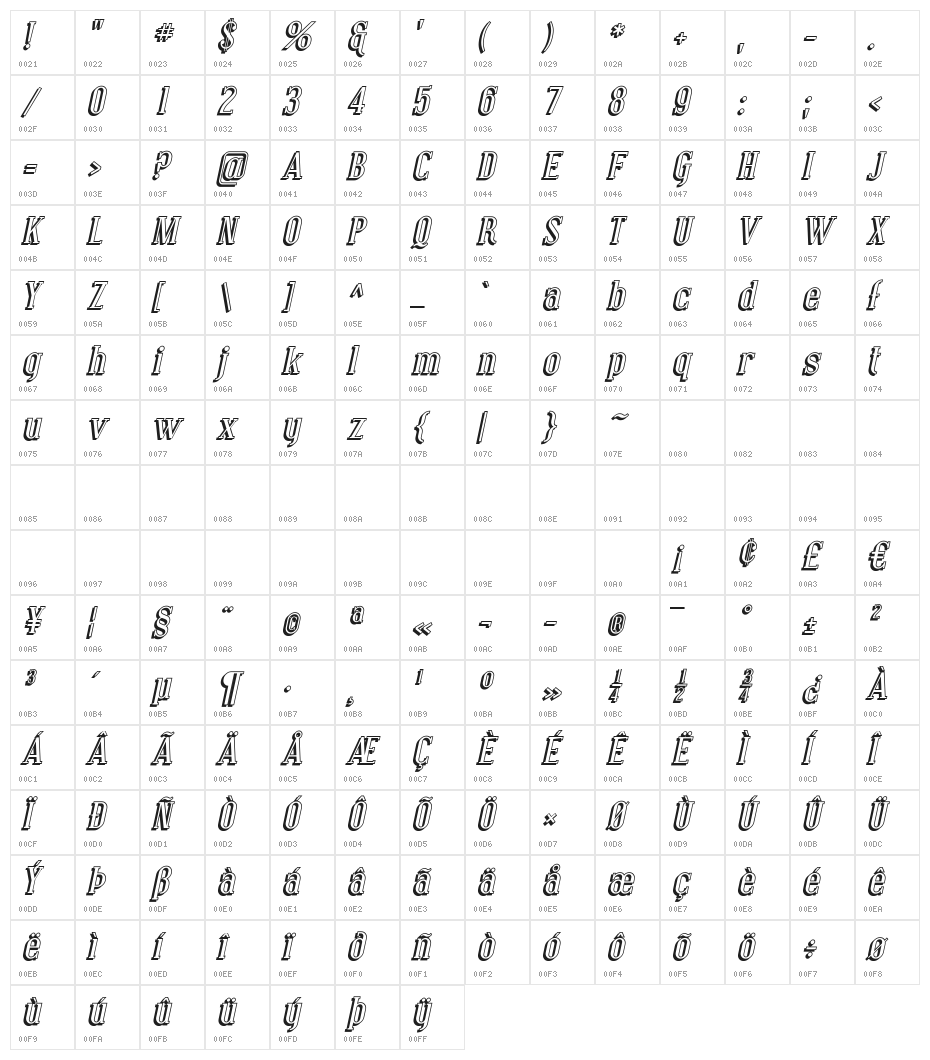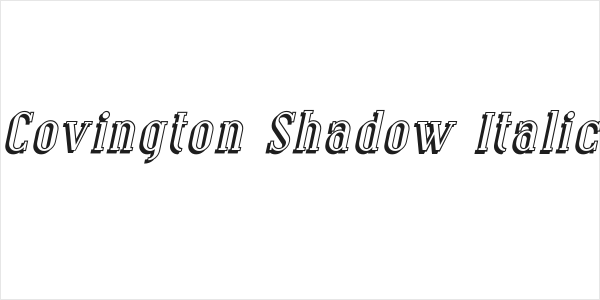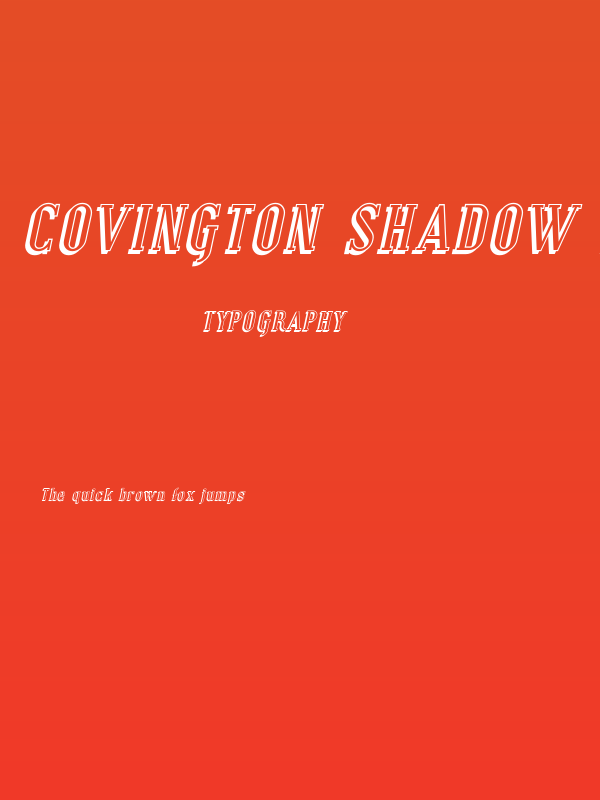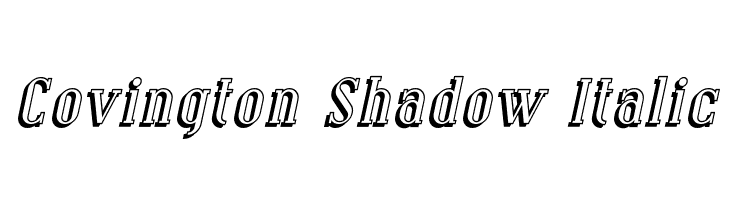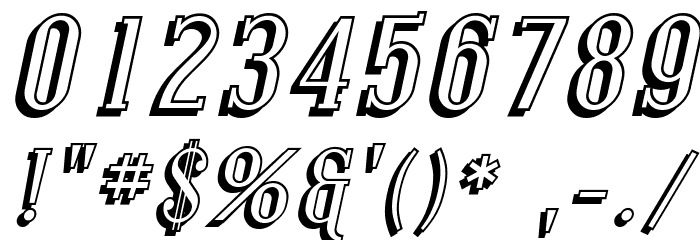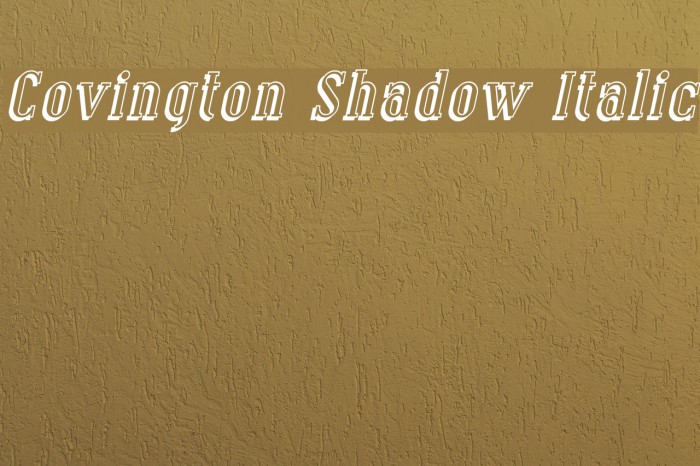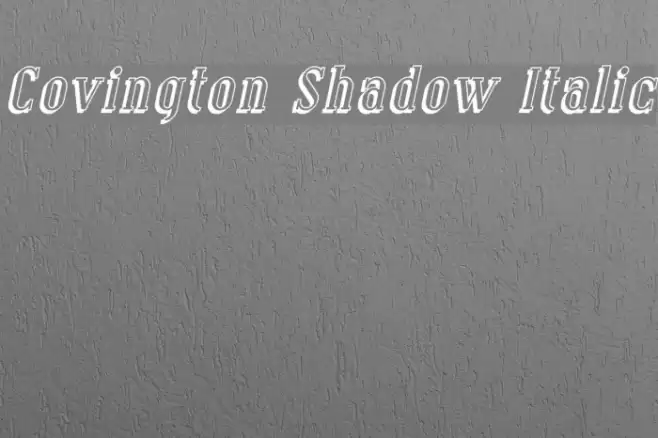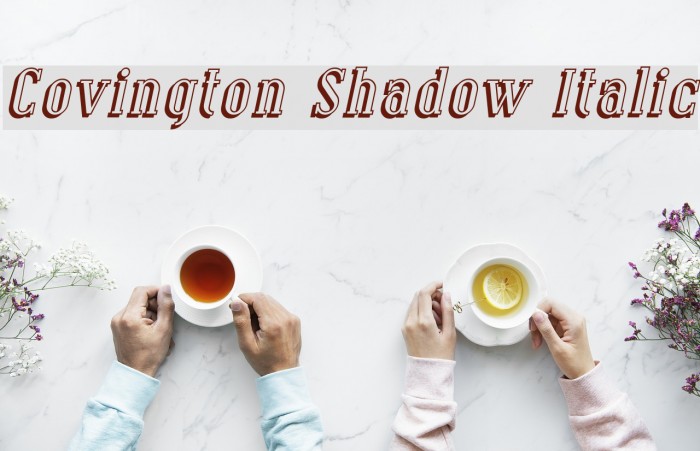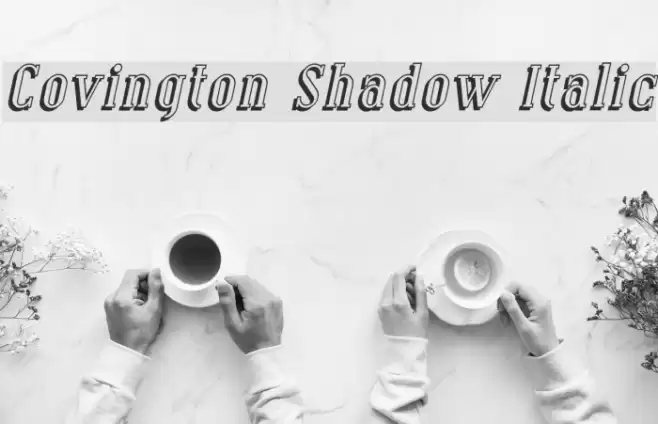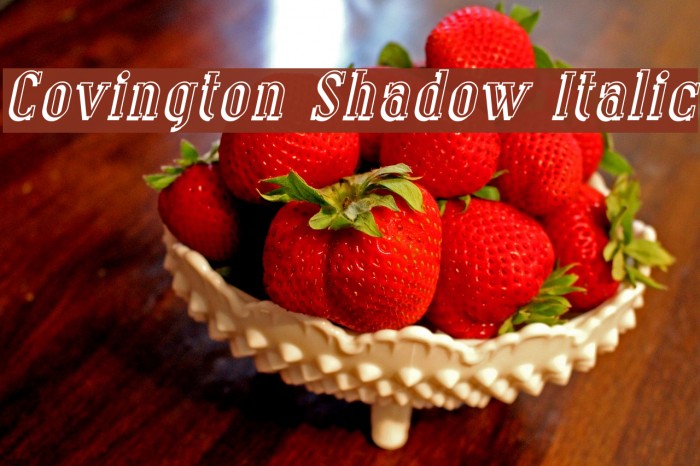
Covington Shadow Italic Font
This font features a distinctive italic style with a shadow effect that adds depth and dimension to each character. The uppercase and lowercase letters are elegantly slanted, creating a dynamic and sophisticated appearance. The numbers and special characters maintain this italicized form, ensuring consistency throughout. The shadow effect is bold and prominent, giving the font a three-dimensional look that stands out on any page. The overall design is both classic and modern, making it versatile for various applications.
| Proposed Projects | Ideal for branding, headlines, posters, and any design project that requires a bold and stylish statement. |